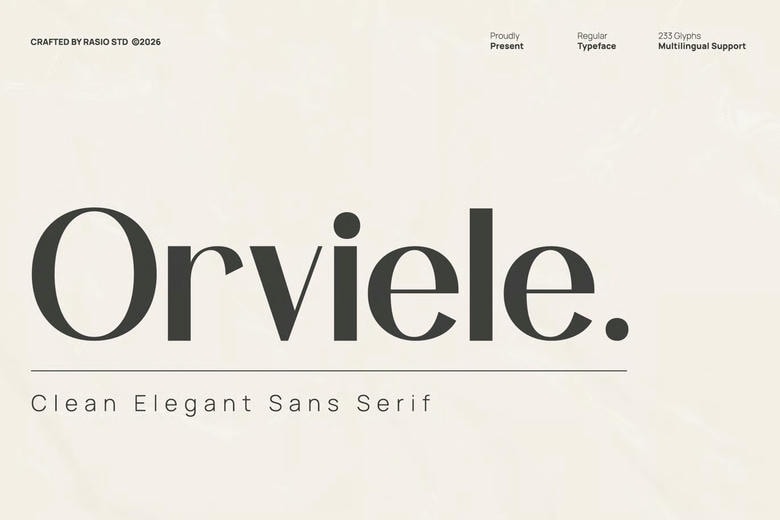
Orviele Font
Orviele Font Clean Elegant Sans Serif is a sophisticated and modern typeface that is constructed using smooth curves, proportionality, and slight contrast to create a high-end visual tone. The font consists of uppercase, lowercase, numbers, and punctuation. Its clean design and contemporary beauty provide good readability and a high-quality look in both digital and print usage. Provided in quality font formats, completely scalable, and can be used in a professional environment without any extra plug-ins.
Relevance and Use Cases is perfect for branding design, corporate identity systems, fashion editorials, modern websites, UI/UX interfaces, startup presentations, digital products, advertising campaigns, portfolio layouts, social media branding, luxury packaging, and professional print materials that require a clean, elegant, and contemporary typographic presence.